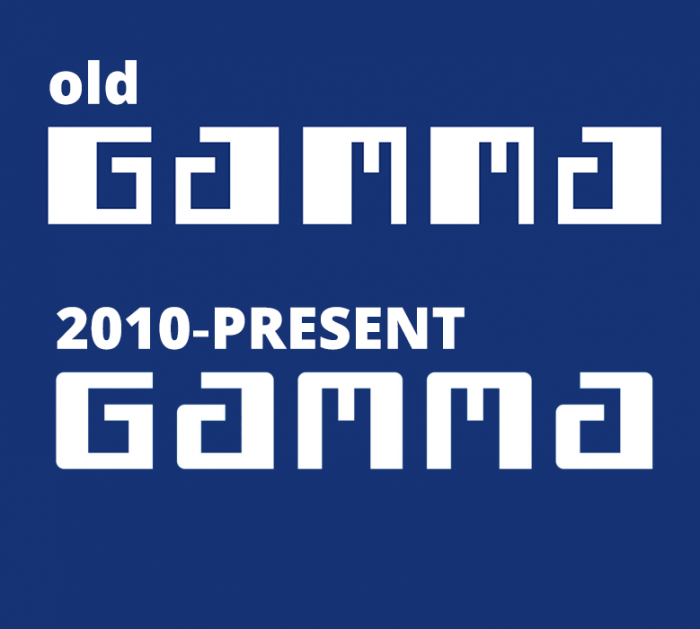
Recap of the lettering from logo for GAMMA (2010-present), a Dutch hardware store-chain.
bellow is a example of both original GAMMA logos for comparison.
Gamma New